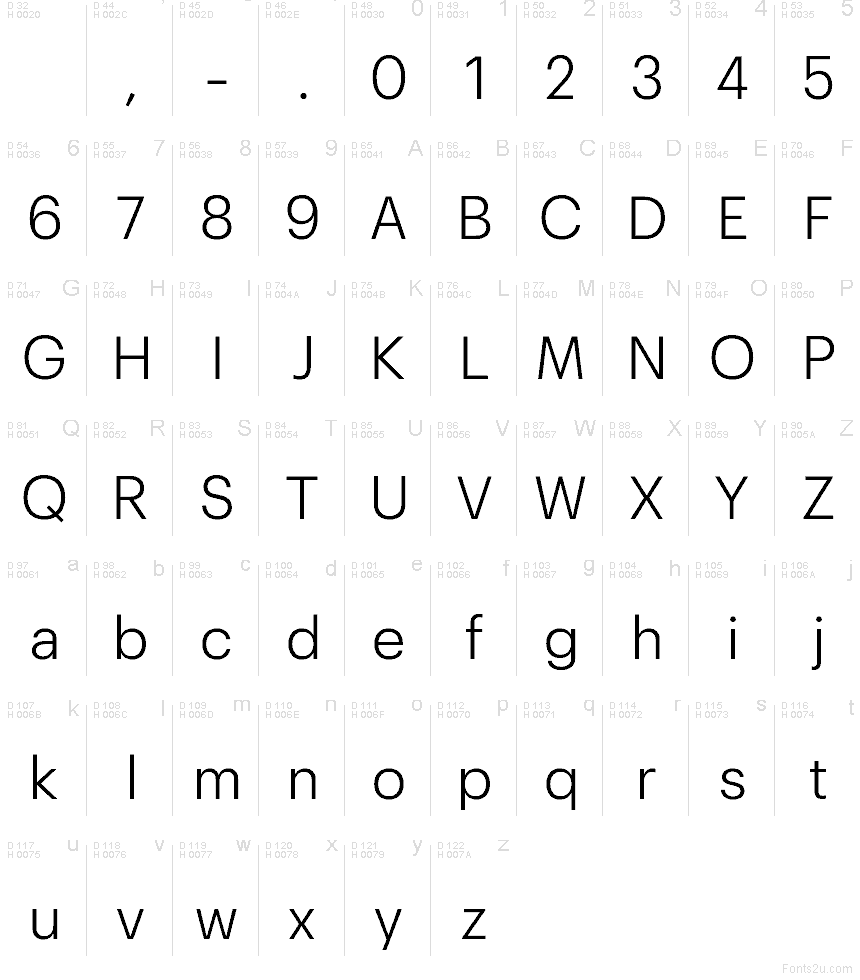
Encamp Test Light
Encamp Test Light font by Punchform is a free sans serif typeface that keeps visuals clean, airy, and precise when space is tight. The Encamp Test family’s light weight and steady, straight-sided forms give text a calm, controlled presence without feeling cold or mechanical. Letters sit with even, generous spacing, so small sizes stay legible while larger headlines look razor-sharp and quietly confident.
Using Encamp Test Light, you can bring a refined clarity to UI labels, app menus, data dashboards, minimalist posters, pitch decks, and product landing pages. This free font thrives in systems where consistency and readability matter, from navigation text to microcopy and footnotes. For a simple pairing, use Encamp Test Light for body text and combine it with a bolder weight from the Encamp Test family for titles and calls to action.